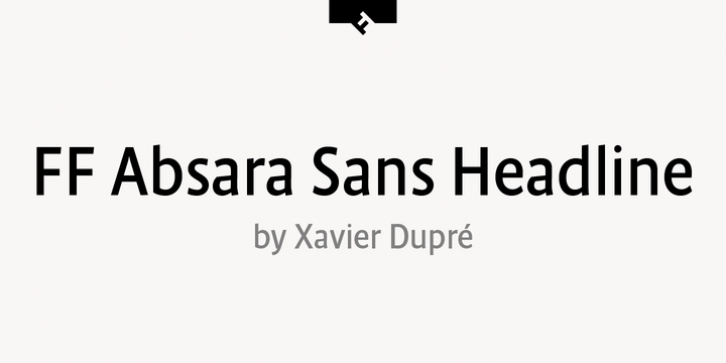
Publisher: FontFont
French type designer Xavier Dupré created this sans FontFont in 2007.
The family has 6 weights, ranging from Thin to Black and is ideally suited for editorial and publishing projects.
FF Absara Sans Headline provides advanced typographical support with features such as ligatures, alternate characters, case-sensitive forms, fractions, and super- and subscript characters.
It comes with a complete range of figure set options – oldstyle and lining figures, each in tabular and proportional widths.
This FontFont is a member of the FF Absara super family, which also includes FF Absara, FF Absara Headline, and FF Absara Sans.